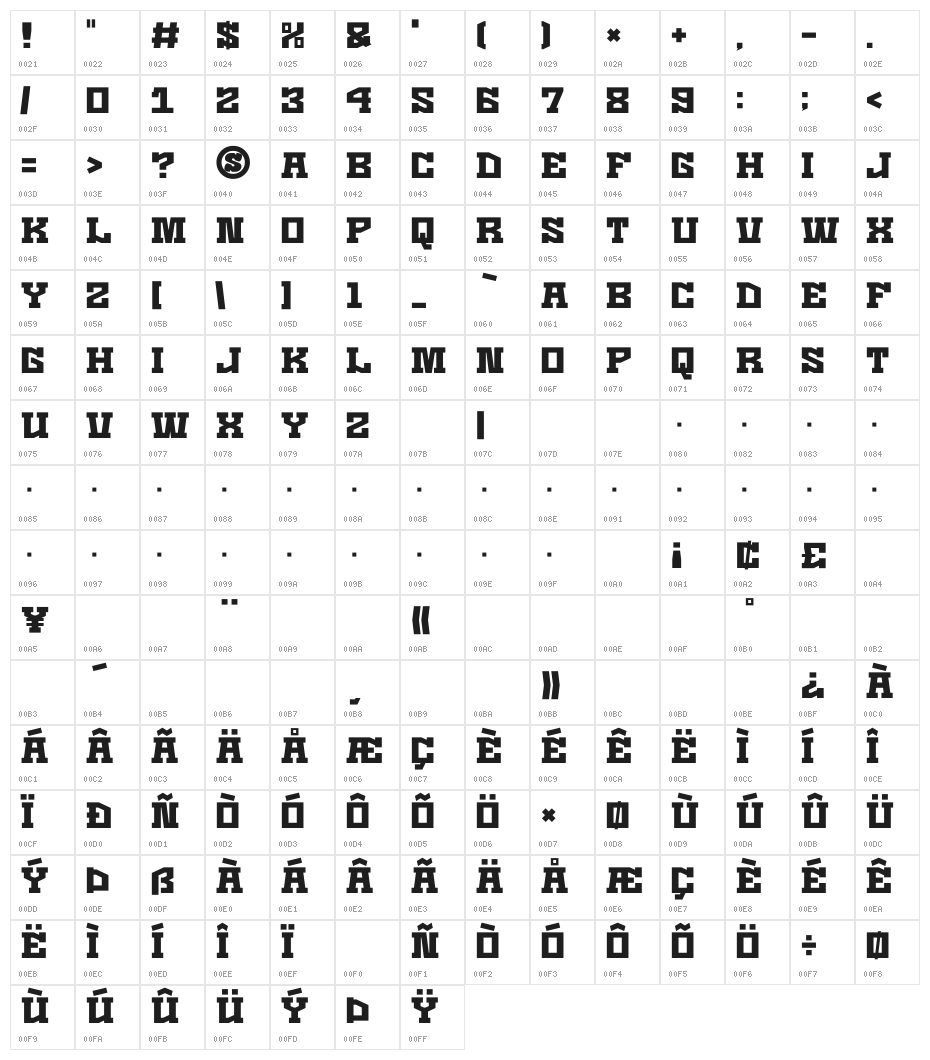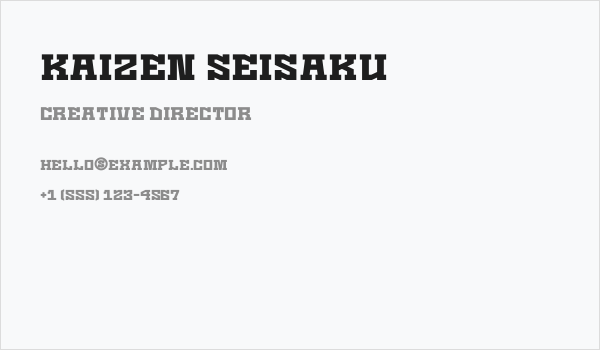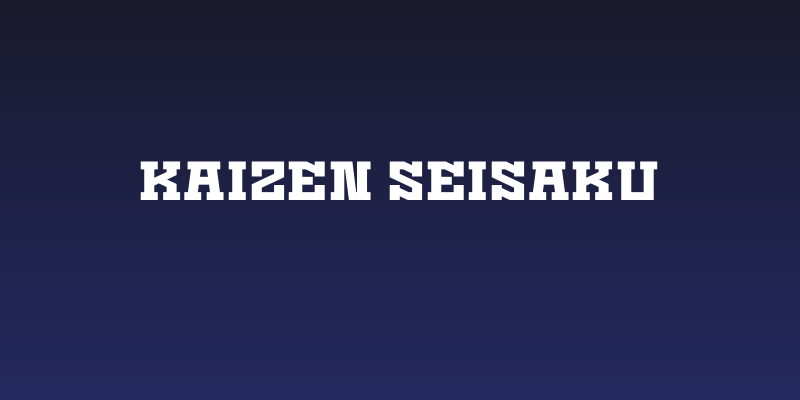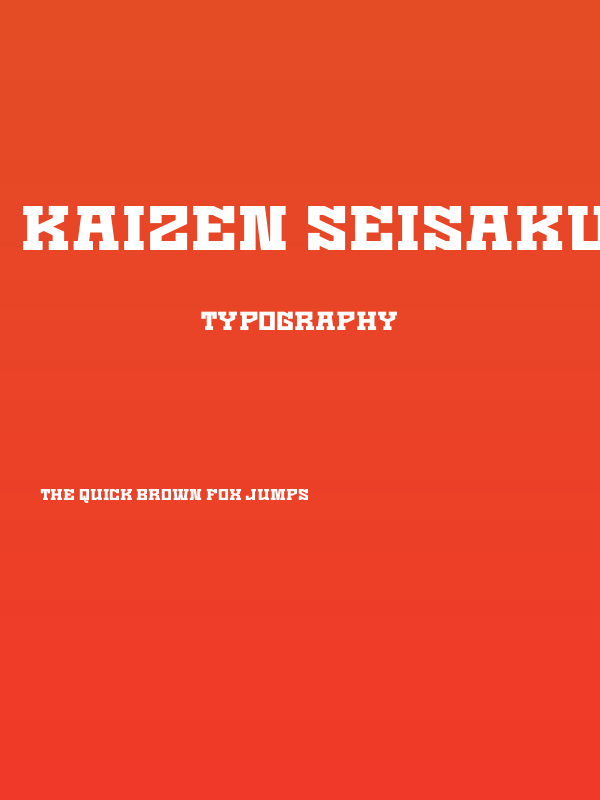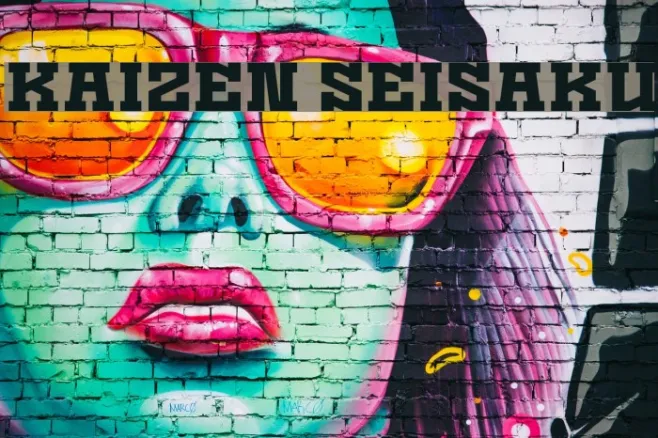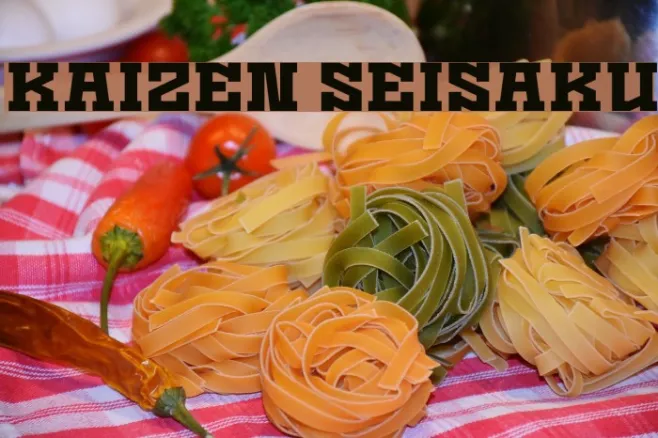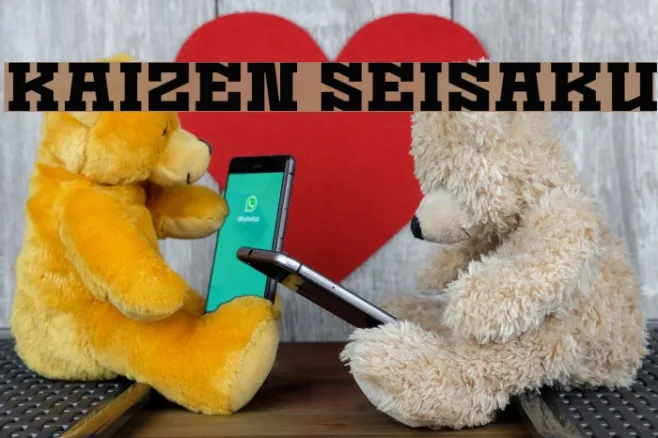
Kaizen Seisaku Font
Kaizen Seisaku Description
This font features a bold and robust design with a strong geometric structure. The characters are constructed with thick, block-like strokes, giving them a powerful and commanding presence. The angular edges and uniform line thickness contribute to a modern and industrial aesthetic. The uppercase letters are particularly striking, with a consistent height and width that create a cohesive look across the alphabet. The numerals and special characters maintain the same bold style, ensuring readability and impact. Overall, this font is designed to make a statement, ideal for projects that require a strong visual impact.
| Proposed Projects | Ideal for branding, posters, headlines, and any design requiring a strong visual impact. |